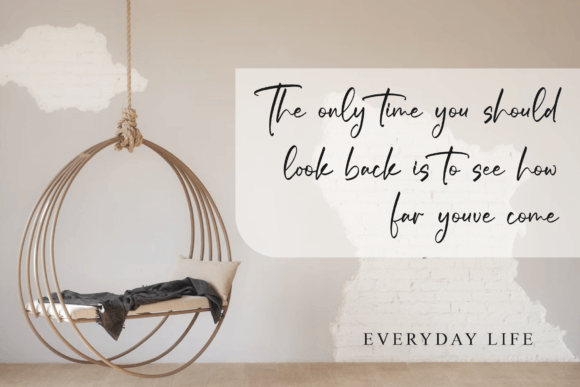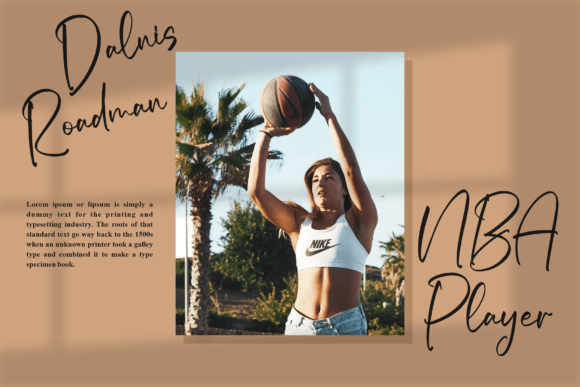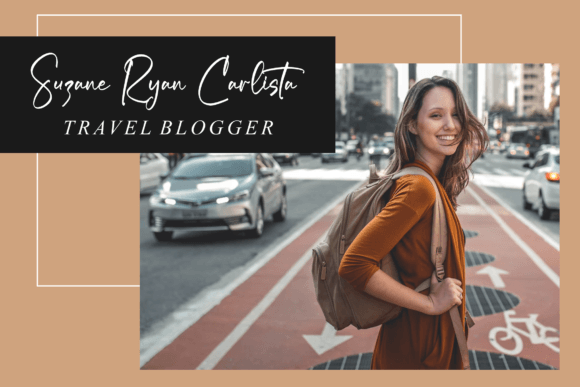
Introduction to Rolyanticc Font
Remember that moment when you were brainstorming ideas for your latest design project, and you just couldn’t find the right font to bring it all together? That’s where the Rolyanticc Font comes in – a dazzling script font that’s about to become your new best friend.
With its neat, handcrafted design and intricate details, the Rolyanticc Font is a game-changer for any creative project. Whether you’re working on a branding campaign, designing a wedding invitation, or creating a stunning social media graphic, this high-quality font has the potential to elevate your work to the next level. And the best part? You can download it for free, making it an essential design resource for any serious designer.
Key Features of Rolyanticc Font
- Unique, hand-drawn design with a whimsical touch, perfect for creative projects.
- High-quality font with transparent background, ideal for designers who need a clean and minimalist look.
- Includes a large character set, covering a wide range of languages and characters, making it a versatile font for global projects.
- Designed with a high-resolution, 300 DPI, ensuring crisp and clear text, even when scaled up or down.
- Perfect for use in logos, branding, packaging, and other creative projects where a unique and eye-catching font is required.
Honest Review: Rolyanticc Font
I recently stumbled upon the Rolyanticc Font while searching for high-quality design resources for a creative project. As a designer, I’m always on the lookout for unique and versatile fonts to elevate my work. The Rolyanticc Font is a fantastic addition to my collection.
- ✨ High-quality design: The Rolyanticc Font has a professional and polished look, making it perfect for various design projects.
- ✨ Transparent background: This feature allows for seamless integration with other design elements, giving me more creative freedom.
- ⚠️ Limited character set: The Rolyanticc Font has a limited character set, which might not be suitable for projects that require a wide range of characters.
- ⚠️ Not ideal for small text: The font’s design makes it less readable in small text sizes, so it’s best used for headings or titles.
Overall, I’m impressed with the Rolyanticc Font’s design and versatility. While it has some limitations, it’s an excellent addition to any designer’s toolkit. I’d recommend it for creative projects that require a unique and high-quality font.
Rolyanticc Font is a versatile, high-quality design resource that can elevate your creative project. With its unique style and transparent background, you can use it to create stunning visual elements for various applications.
Getting the Most Out of Rolyanticc Font
To get the most out of Rolyanticc Font, experiment with different font sizes, colors, and styles. You can also combine it with other design elements to create unique and eye-catching visual effects.
Rolyanticc Font is perfect for creative projects that require a touch of elegance and sophistication. You can use it to create logos, business cards, or other design elements that require a high-quality font.